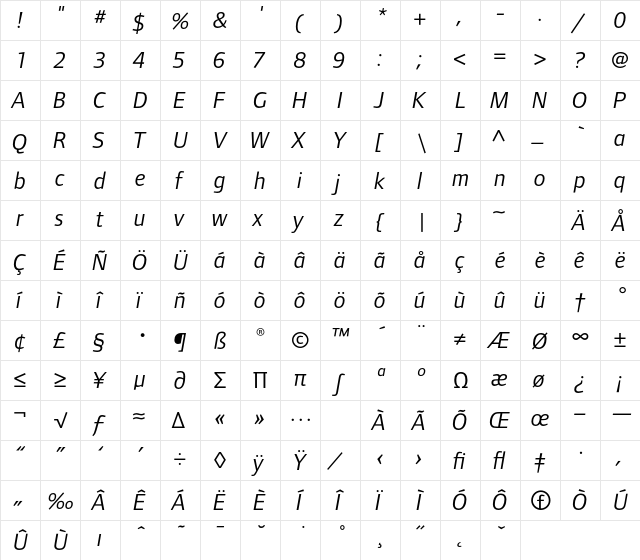
FoundryFormSans Italic
Design Context for FoundryFormSans Typeface
FoundryFormSans takes a measured approach to typography — its balanced proportions and neutral character make it a reliable workhorse for both digital and print work. The dynamic lean of this cut emphasises speed and emphasis in any layout.
Pro Tip: Use FoundryFormSans for emphasis, pull quotes, and subheadings where its slanted energy can add rhythm to the layout.